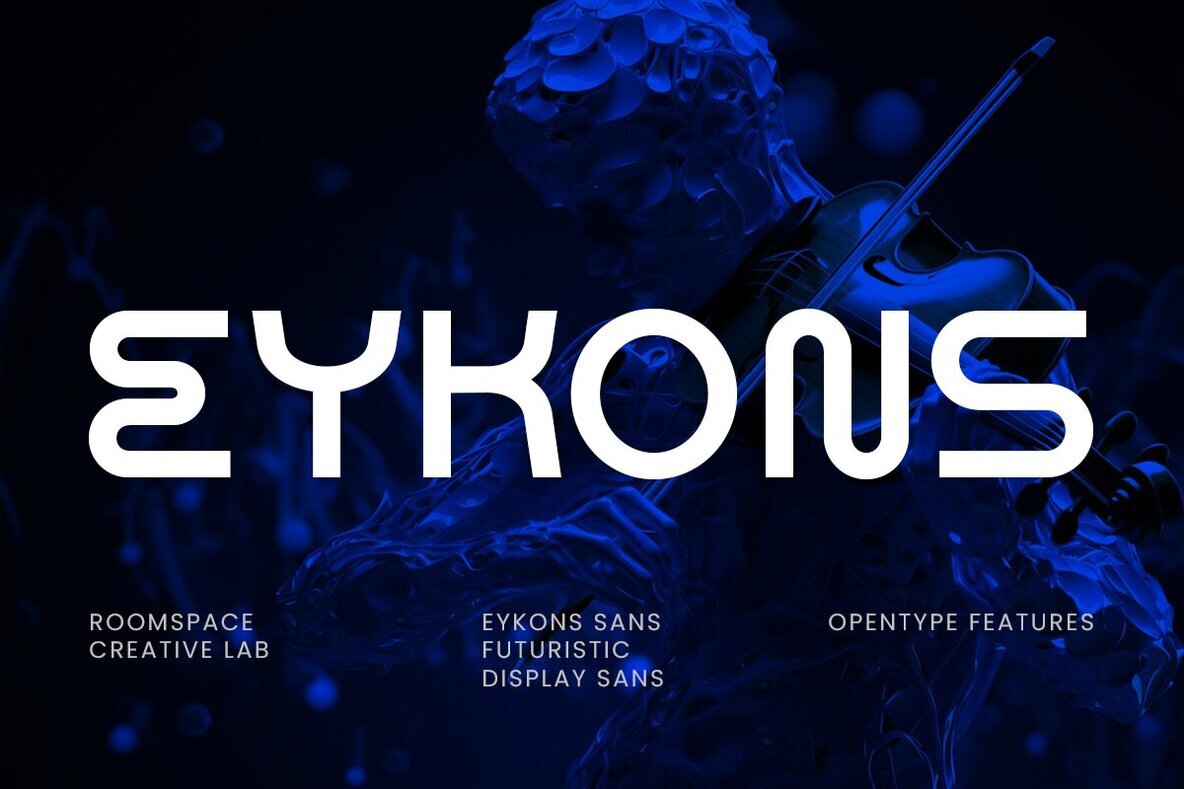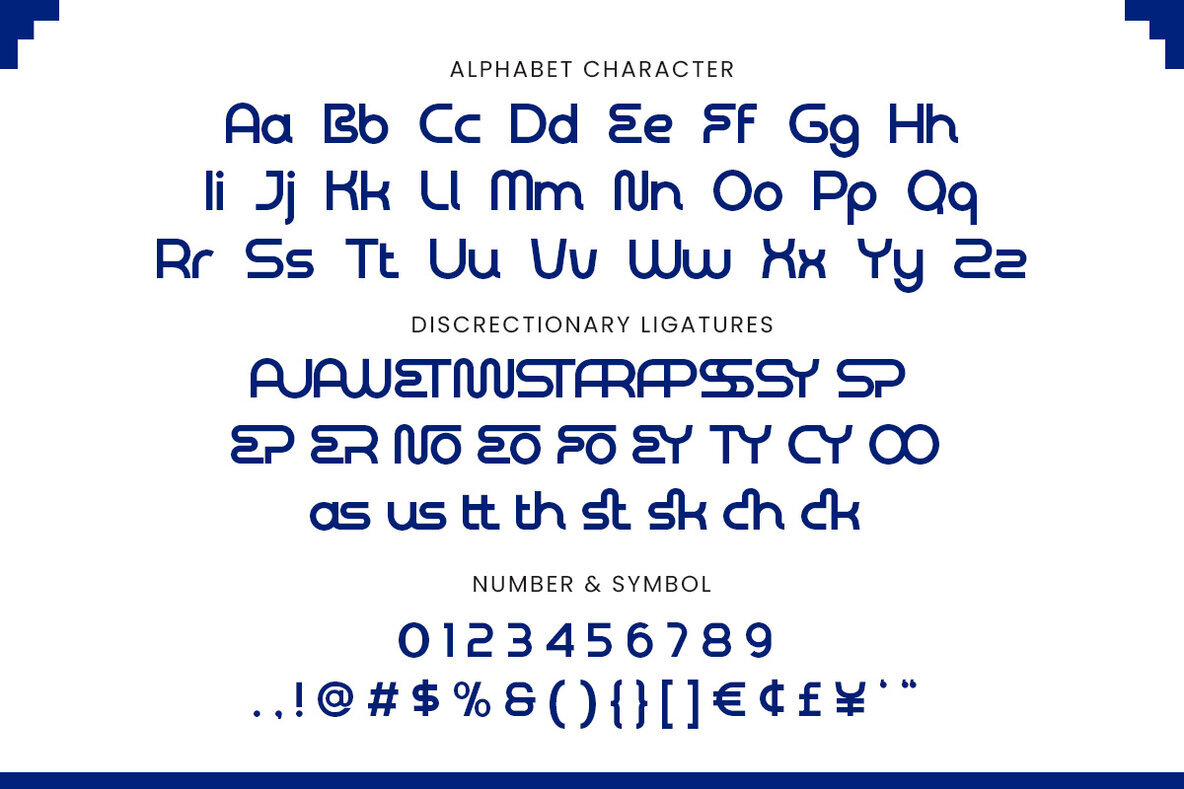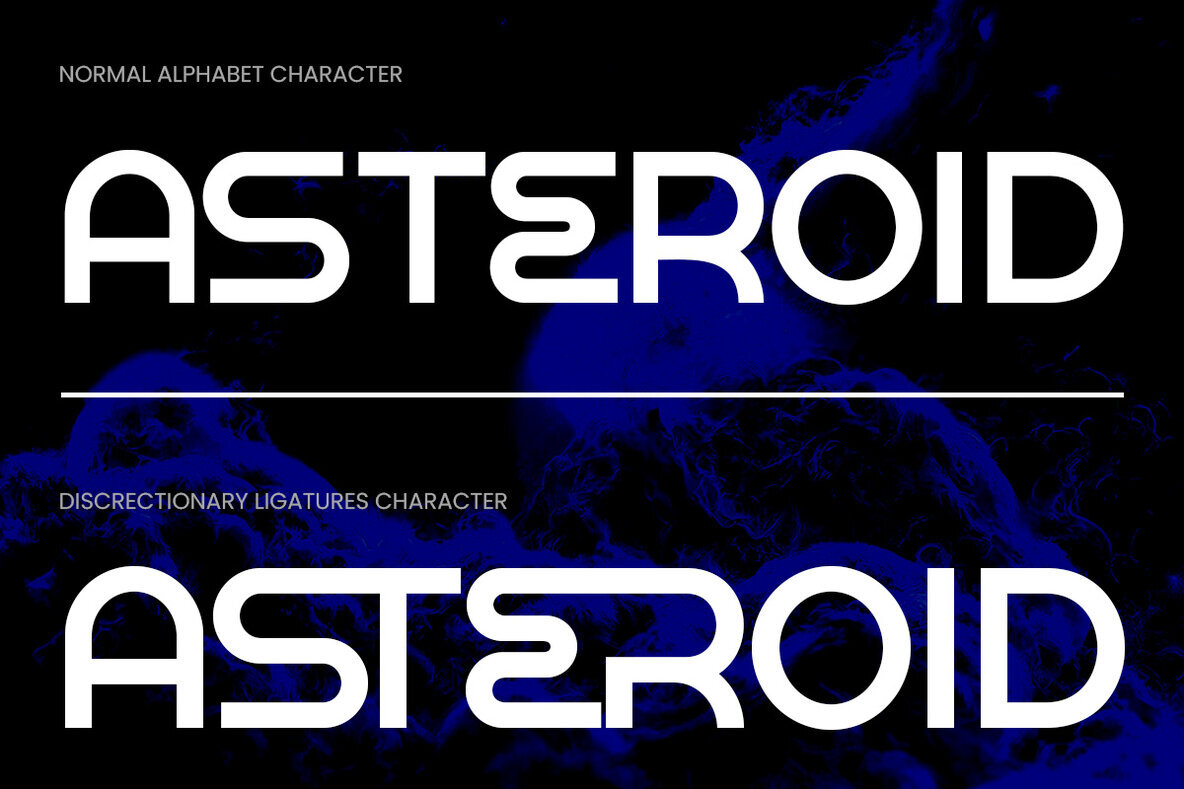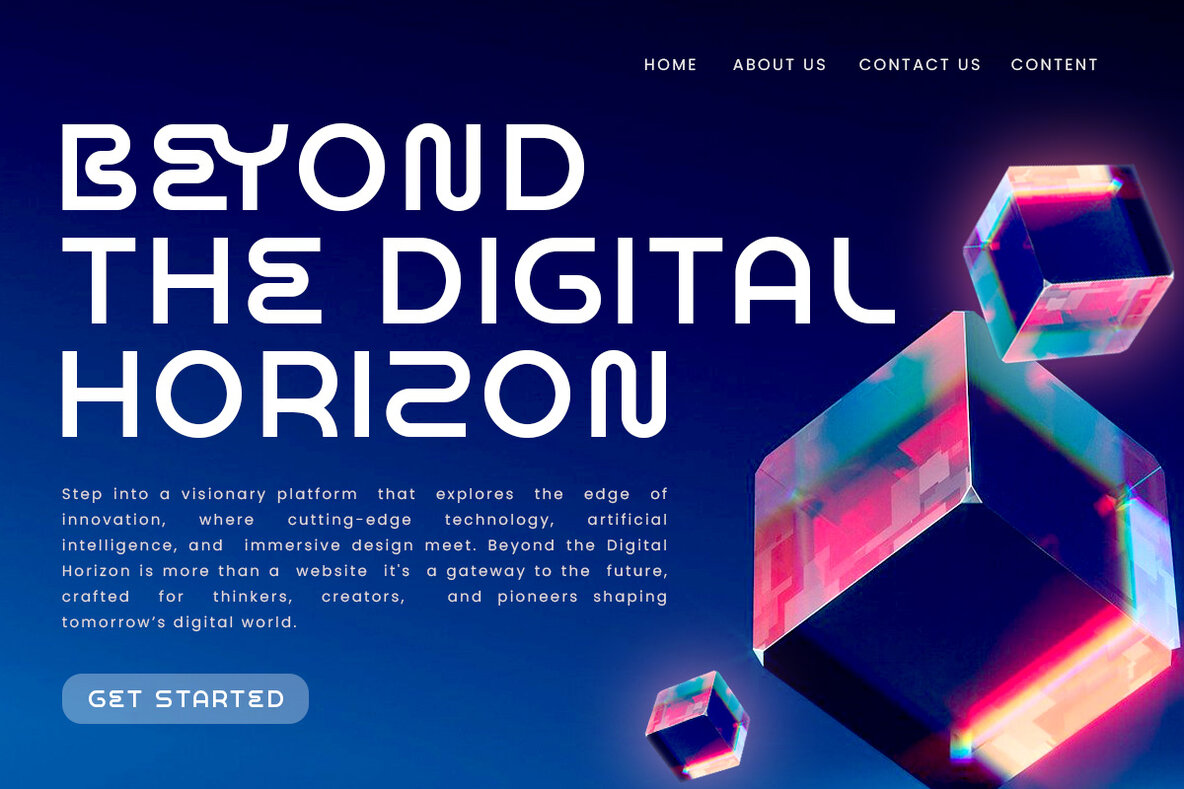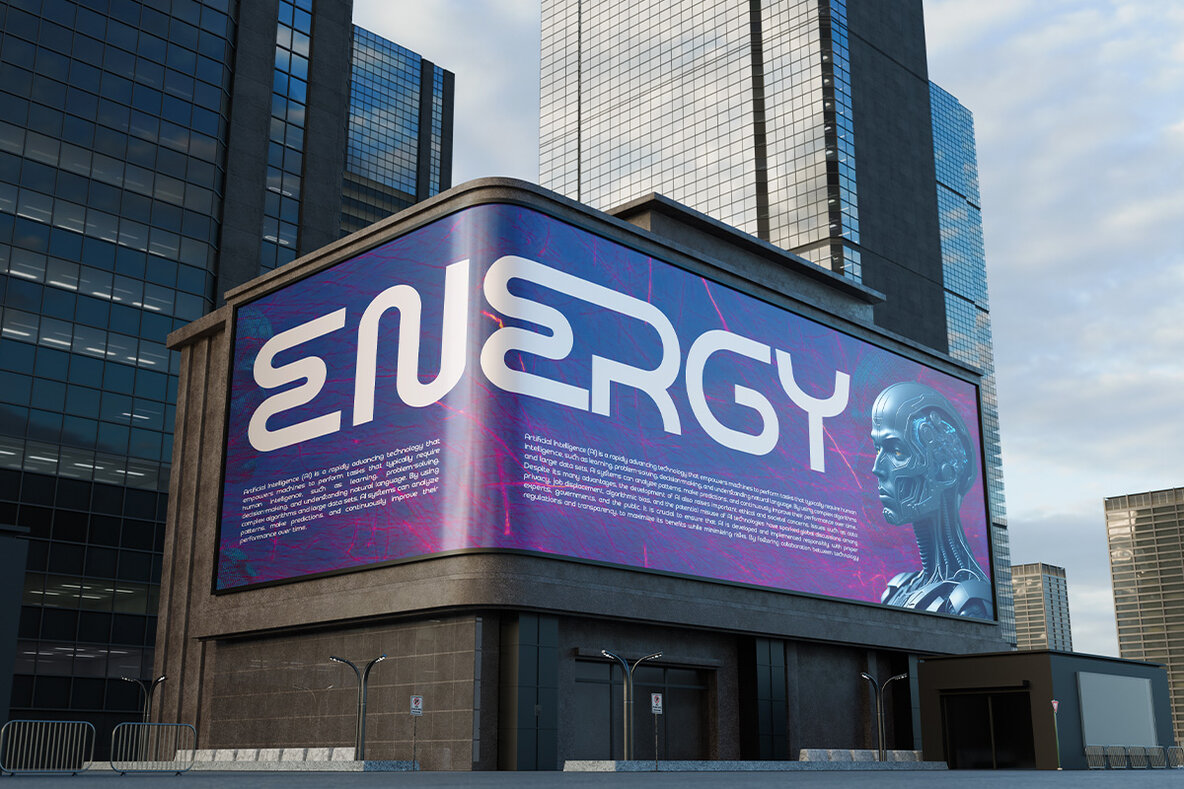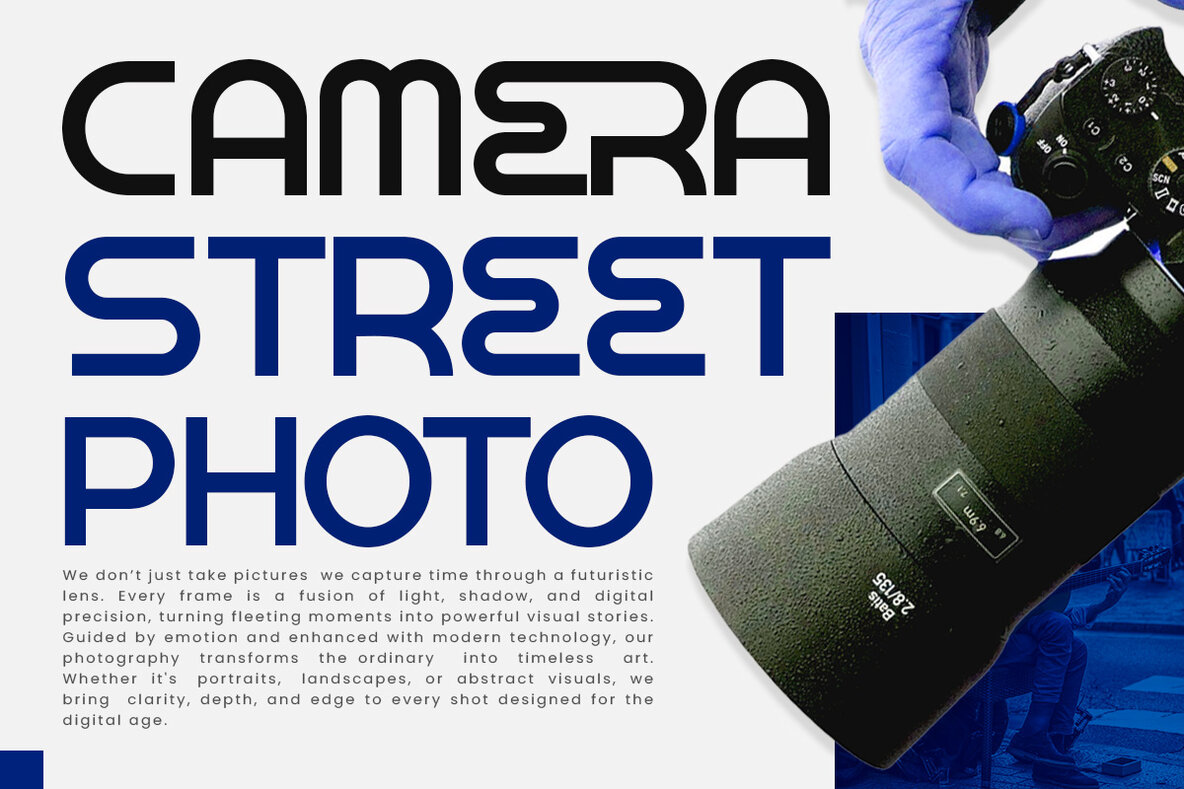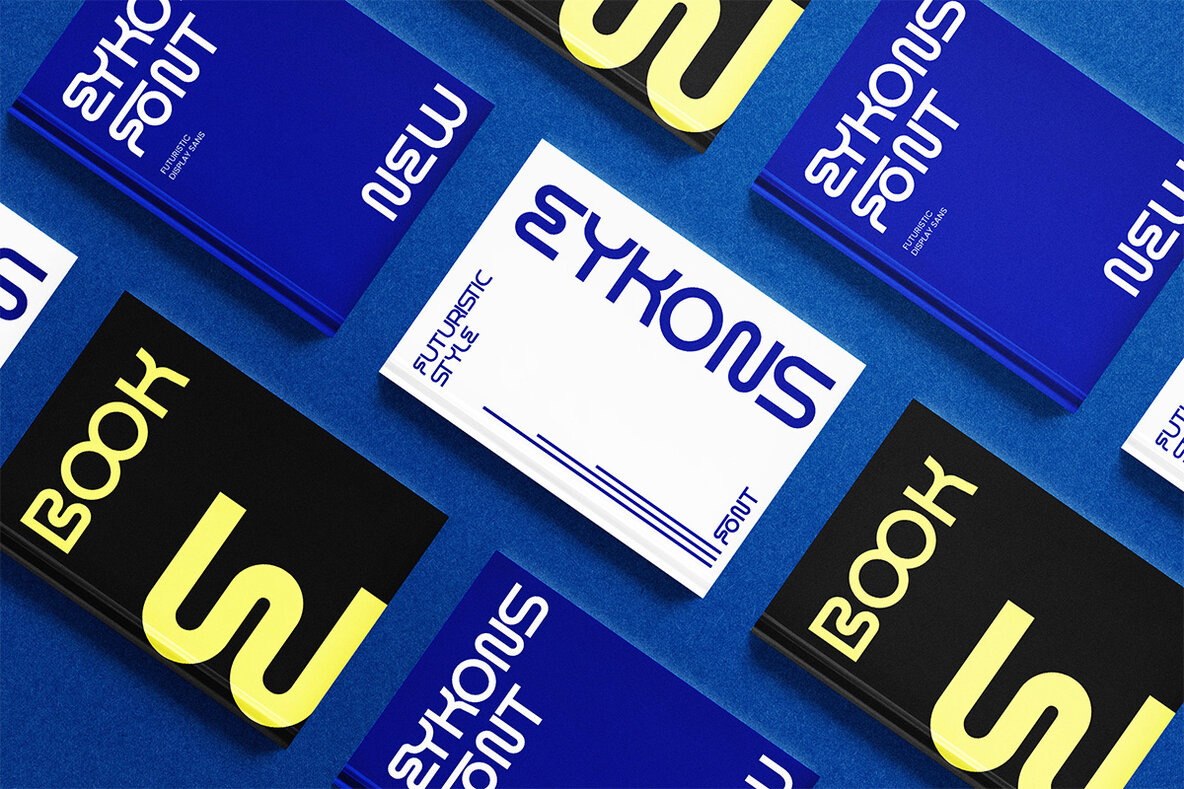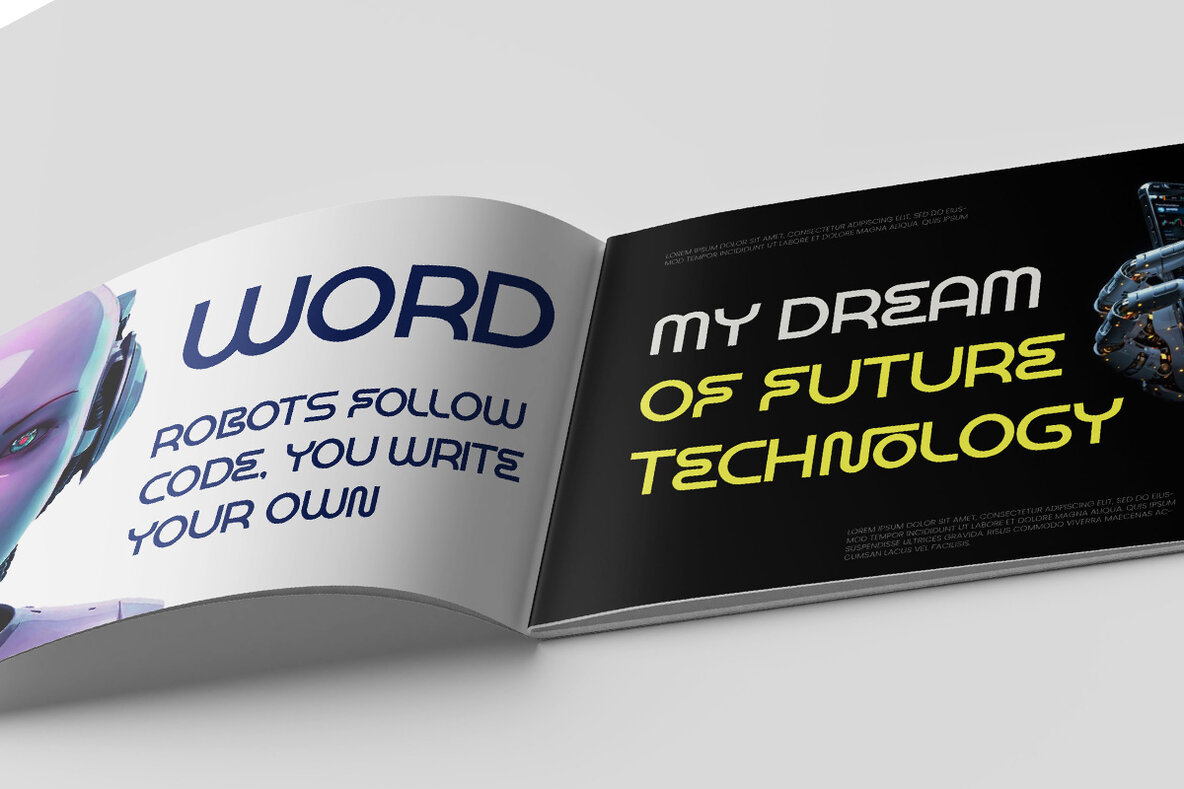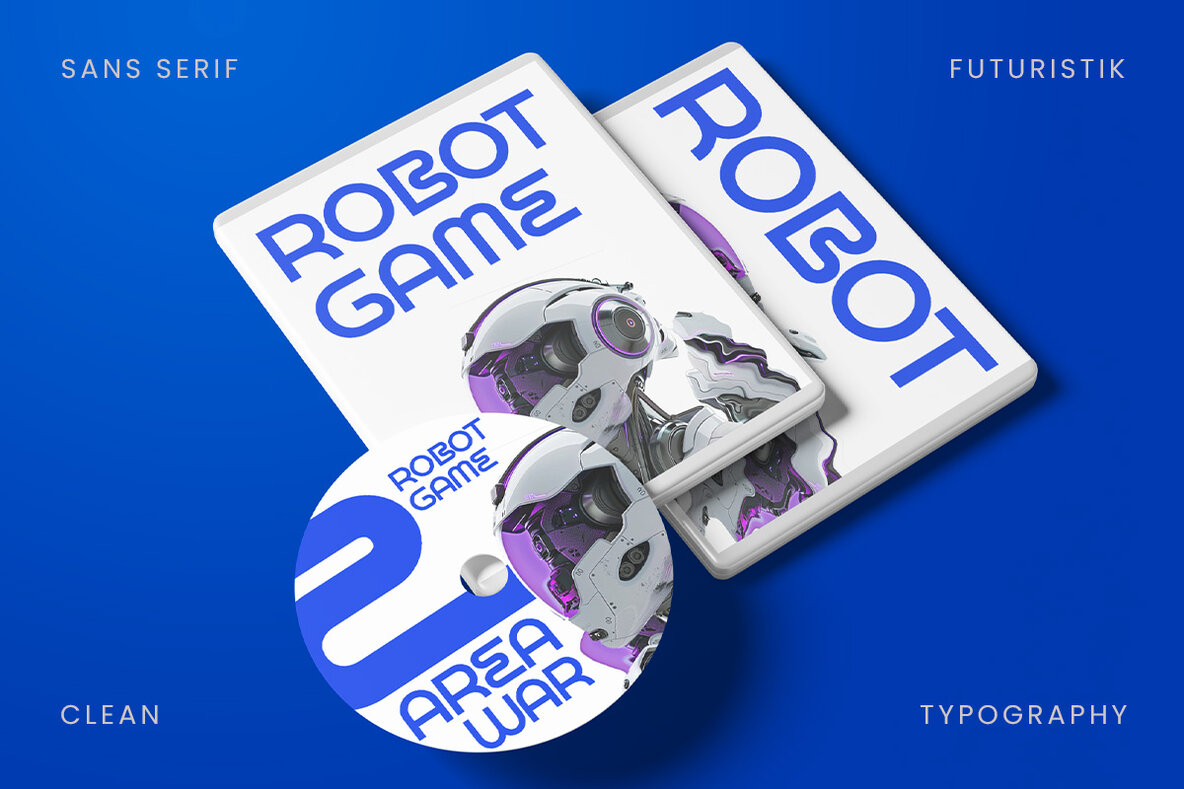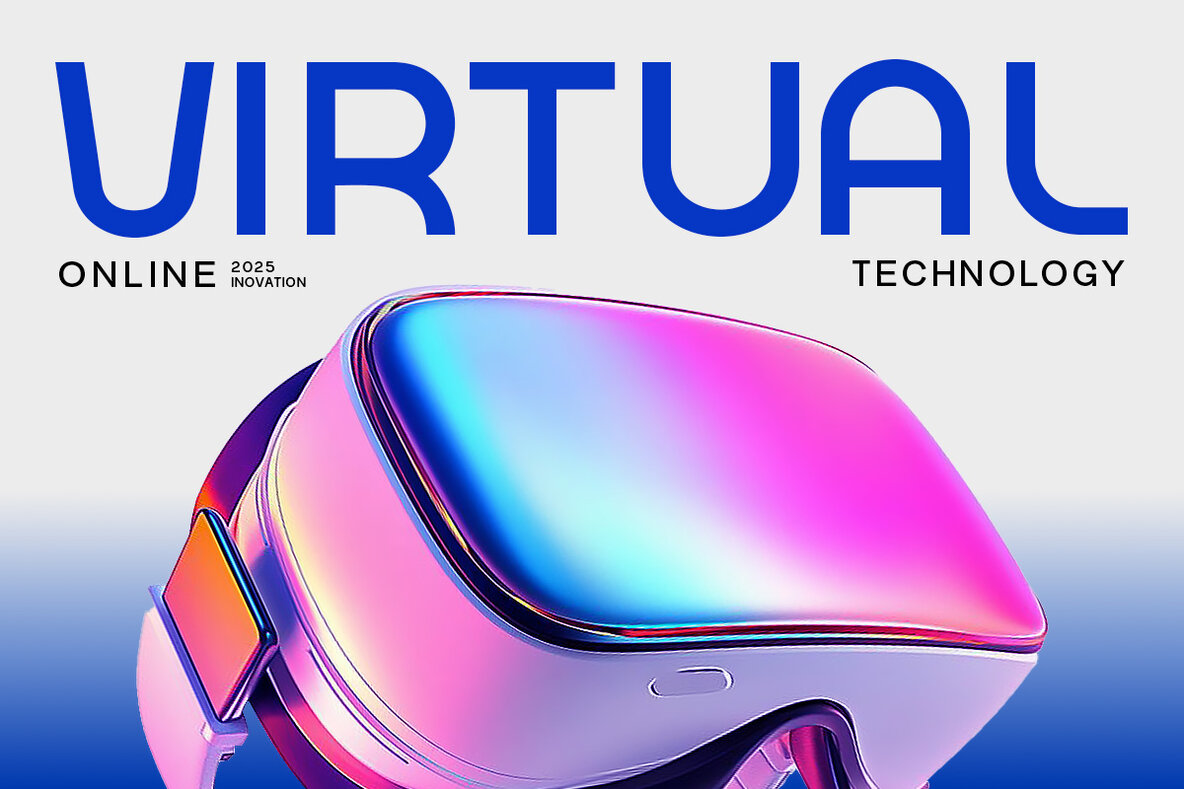
Eykons Font
Eykons Regular
Designed for boldness and clarity, Eykons is a modern sans serif font that embodies geometric precision and a strong personality. This typeface artfully fuses luxury aesthetics with a sleek digital look, making it a distinctive choice in today's visual landscape. Each character in Eykons features clean lines, balanced proportions, and optimized kerning for perfect readability. Its versatile nature supports both large headlines and smaller text, offering designers flexibility and professional outcomes. With OpenType features and multilingual support, Eykons is tailored for diverse design needs. Ideal for tech-inspired logos, modern branding, editorial layouts, social media graphics, and packaging, Eykons adapts effortlessly to various creative projects. Whether crafting sleek digital interfaces or striking posters, this typeface provides both style and vigor.Eykons: A Modern Futuristic Sans Serif